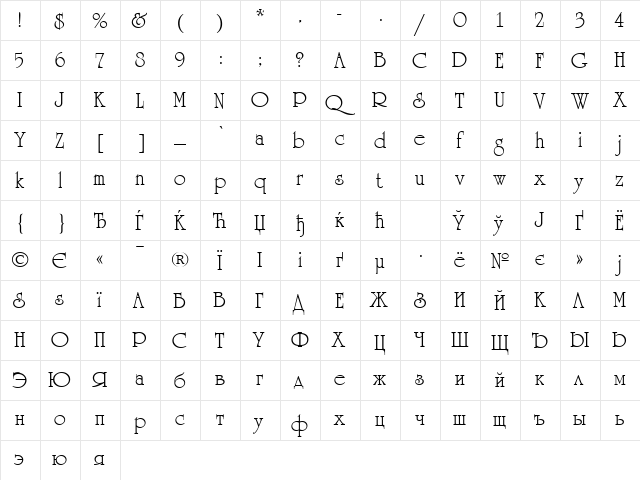
AGReverance Roman
Design Context for AGReverance Typeface
AGReverance offers clean, dependable letterforms without strong stylistic allegiance, making it a practical choice for designers who need flexibility.